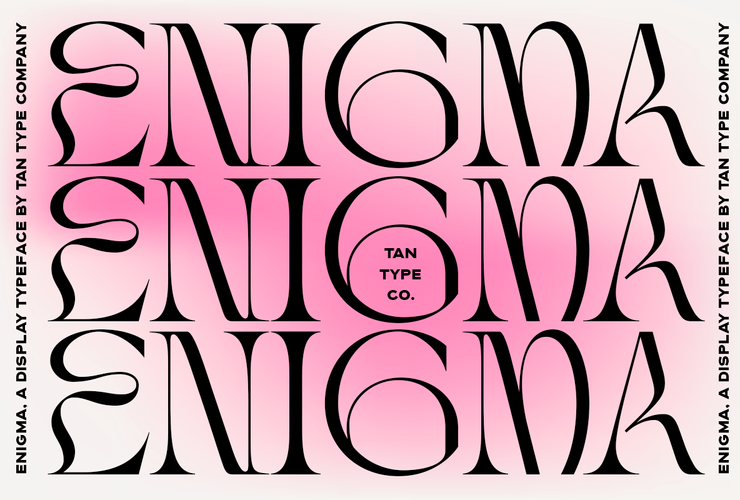
TAN Enigma specimen and verified specs
- Styles: 1 (Display)
- Glyphs: 346
- Language support: Basic Latin (English), Western European, Central & Eastern European
- OpenType features: stylistic alternates, kerning
- Designer: Novia Jonatan (TanType Co.)
Design and character
TanType’s own description is short: “an elegant display serif with a bit of eccentric twist that makes it far from your typical classic serif.” The eccentric part is easy to find in the specimens. Several letters are drawn as if a thin ribbon had been folded into them.
- The capital E has a middle arm that bends into an S-shaped curve instead of a straight bar.
- The G curls inward like a spiral, and the Q tail loops back through the bowl.
- The M has curved, overlapping inner strokes.
- In the lowercase, the e crossbar is a looped stroke, the g ends in a large, tilted oval, and the y tail curls back on itself.
Everything else is fairly classical: high contrast between thick stems and hairline strokes, small sharp serifs, round open bowls and tall ascenders. That mix is what makes the font work. A word like “Enigma” reads easily, and only two or three letters carry the decoration. The figures are calmer still. The 5 has a long flag and the 0 is a tall, narrow oval.
The style is named Display in the font files, and that is the right size range. The hairlines are very thin, so keep it for headings and short phrases.
- One style: Display. There is no bold, italic or variable version.
- 346 glyphs: upper and lowercase, figures, punctuation and accented letters.
Language support and OpenType features
The character set covers Basic Latin plus Western and Central/Eastern European accents, enough for French, Spanish, German, Polish, Czech and Hungarian.
TAN Enigma has two OpenType features:
- Kerning: automatic spacing between letter pairs, applied by almost all software.
Good fits are beauty and skincare packaging, boutique hotel and restaurant branding, book and album covers, event posters and magazine headlines. The odd E, G and g make strong logo letters, so check which ones fall in your brand name.
Pair it with something quiet. Inter or Karla keep body text neutral. Jost has a geometric feel that suits fashion work. For a softer serif pairing, Crimson Pro in its regular weight handles paragraphs that Enigma should not.
Who made TAN Enigma?
Novia Jonatan of TanType Co., according to the font files.
Is TAN Enigma good for body text?
Not really. It is a display style with very fine hairlines. Use it for headings and pair it with a text face.